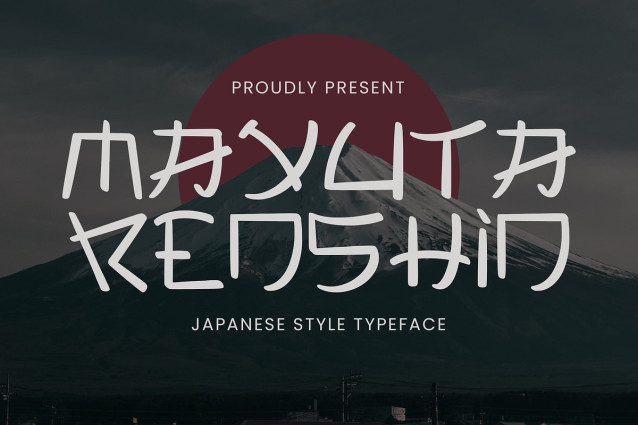
Mayuta Renshin Font
Mayuta Renshin Font is a Japanese-style typography specially crafted to produce exquisite and captivating strokes of the font. Mayuta Renshin is perfect for branding projects, logos, social media posts, advertisements, product packaging, product designs, label, photography, watermark, invitation, stationery, and any projects that need a unique, Japanese touch.